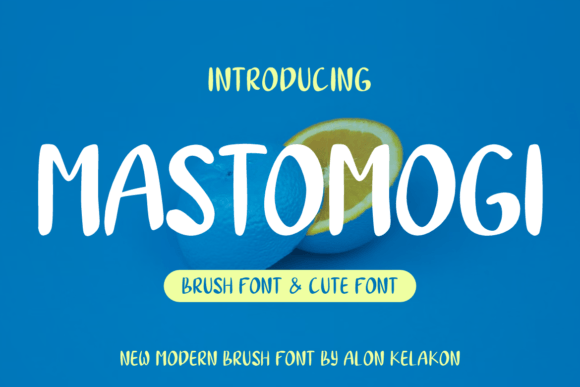
Journey into the enchanting world of Mastomogi Font, a captivating script typeface that exudes charm and playfulness. Its whimsical strokes dance across the page, evoking a sense of childlike wonder and heartfelt connection. This enchanting font invites you to embark on a creative adventure, where imagination knows no bounds.
With its effortless readability and playful personality, Mastomogi Font is the perfect choice for crafting heartfelt messages, delightful digital designs, captivating presentations, and heartwarming greeting cards. Its versatility extends to a multitude of occasions, making it your trusty companion for expressing joy, love, and heartfelt sentiments.
Step into a world of creativity with Mastomogi Font. Let your imagination soar as you create enchanting designs that capture hearts and ignite smiles. Its magic lies in its ability to transform ordinary words into extraordinary expressions of love, friendship, and pure joy.
Immerse yourself in the boundless creativity that Mastomogi Font offers. Its enchanting allure will captivate your audience, leaving them spellbound by the beauty of your creations. Discover the limitless possibilities hidden within this remarkable font and weave your own tapestry of visual wonders.
Harness the power of Mastomogi Font to craft designs that resonate with your audience on a deeper level. Its playful spirit will add a touch of whimsy to your projects, while its impeccable friendliness ensures that your message is conveyed with warmth and sincerity.
From heartfelt letters to eye-catching social media posts, Mastomogi Font is your secret weapon for creating designs that leave a lasting impression. Its versatility allows you to effortlessly adapt it to any project, ensuring that your creative vision is brought to life in a way that captivates and inspires.